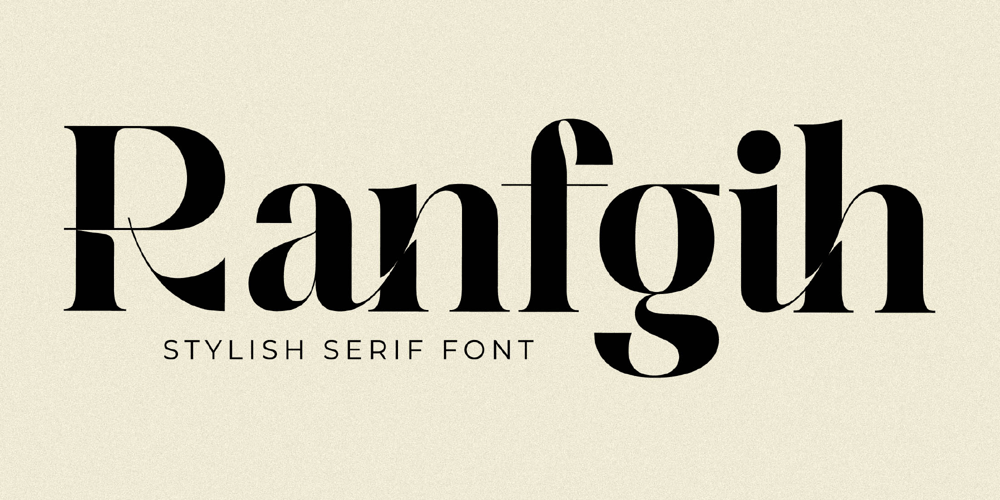
Ranfgih Font Family was designed by Heru Utama Putra and published by Letterena Studios. Ranfgih contains 2 styles and family package options. Ranfgih is a modern and classy serif font that has its own unique style and modern look. It is perfect for elegant and luxury logos, book or movie title designs, fashion brands, magazines, clothes, lettering, quotes, and so much more.